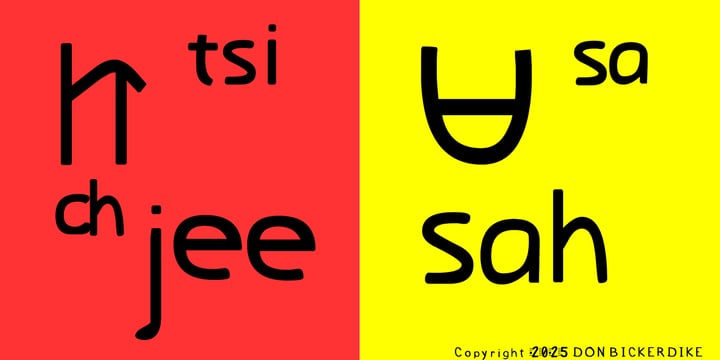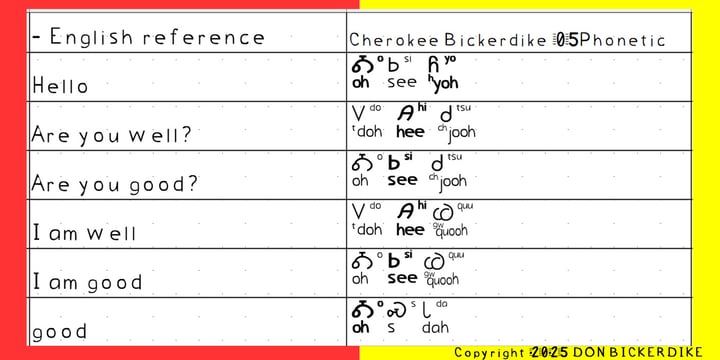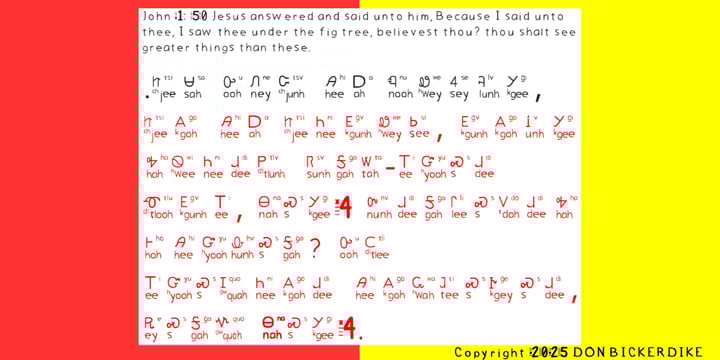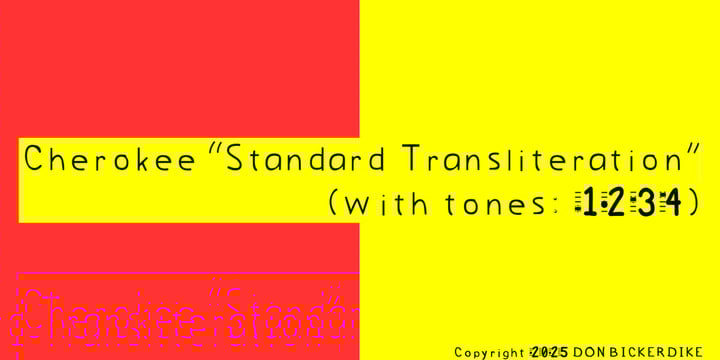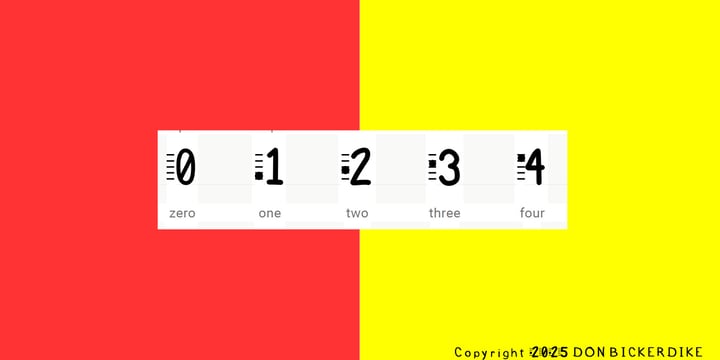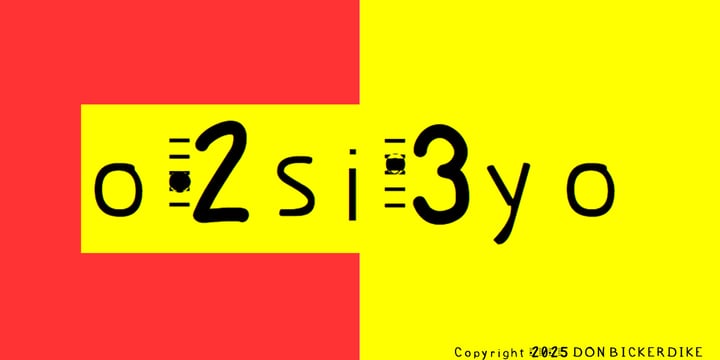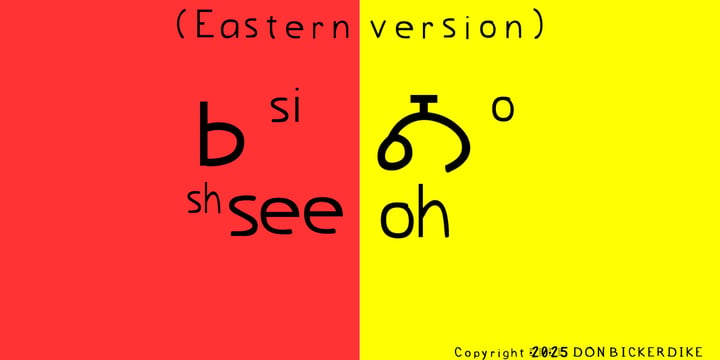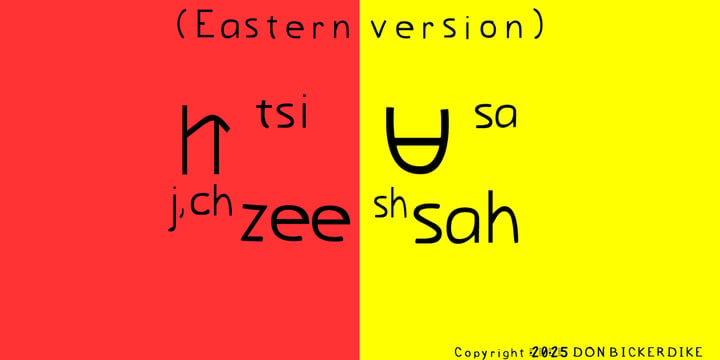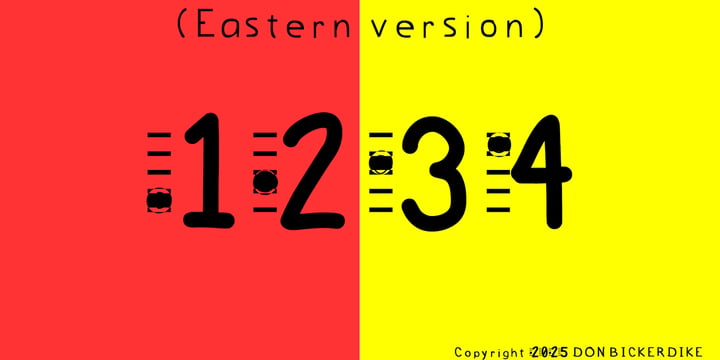
Don Bickerdike is a type designer whose work is a fusion of his lifelong passions: a deep-seated fascination with languages, an innate talent for recognizing patterns, a love for the art of creation, and a dedication to the science of memorization. From his teenage years, Don was captivated by the structures of different languages, a pursuit that cultivated his unique ability to see the underlying logic and rhythm in complex writing systems. This analytical skill, combined with his background as an amateur artist, provides him with a rare perspective—one that sees a font not just as a tool for communication, but as a carefully crafted work of art.
His journey into type design began not as a commercial venture, but as a deeply personal project born from his own work as a language publisher. Don’s interest in providing effective educational tools led him to see a fundamental need in the field of language learning. This realization became the driving force behind his creation of a phonetic font for the Cherokee syllabary—a project that perfectly harmonized all of his talents. He approached the design with the eye of an artist, meticulously crafting each character, and the mind of a linguist, ensuring that every element was logically sound and phonetically accurate.
The result is a font that is both a work of art and an invaluable educational resource. It is a direct reflection of his dual nature as a designer and a teacher, seamlessly blending the aesthetic with the academic. The creation of the Bickerdike Extended Transliteration (B.E.T.) system and the innovative use of illustrated numeric tones were born from his unique ability to simplify complex patterns for the benefit of the learner. His design is not a mere reproduction of an existing alphabet; it is a revolutionary re-imagining of a writing system for a modern context.
Today, Don’s work is driven by a powerful mission to bridge the gap between cultural heritage and contemporary technology. His initial foray into Cherokee syllabary is a testament to this commitment, and his vision extends to creating similar phonetic fonts for other indigenous languages. Through the foundry, Deep Perspective Books, Don Bickerdike offers tools that are more than just fonts—they are bridges to new understanding, embodying a profound appreciation for language and the art of seeing things from a different, and indeed, deeper perspective.